Metsuri Font
Introducing Metsuri, a bold and captivating sans-serif font designed to make your YouTube thumbnails stand out from the crowd. With its clean lines and geometric structure, Metsuri exudes a sense of modernism and professionalism, perfectly complementing a wide range of YouTube content. This font is suitable for any graphic designs such as branding materials, Thumbnails YouTube, video content, print, business cards, logos, posters, t-shirts, photography, quotes, etc.
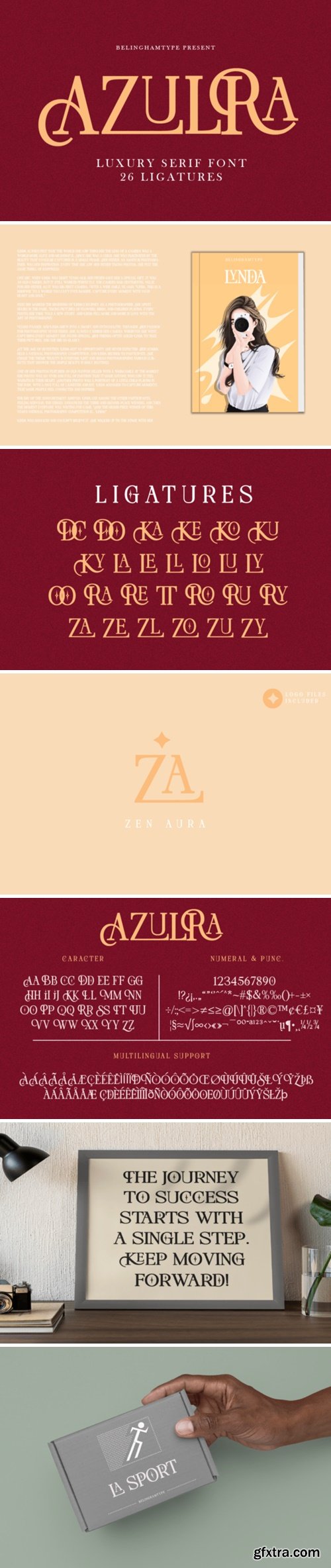
Azulra Font
Azulra is an elegant and bold serif font. Fall in love with its incredibly versatile style and use it to create gorgeous wedding invitations, beautiful stationary art, eye-catching social media posts, and much more!
Dencors Font
Relive the golden era of art with the timeless charm of Dencors- A new font duo with classy script and classic display sans. With vintage feel, inspired by 60s and 70s signages. This font perfectly made to be applied especially in logo, and the other various formal forms such as invitations, labels, logos, magazines, books, greeting / wedding cards, packaging, fashion, make up, stationery, novels, labels or any type of advertising purpose.
The Sanders Girls Font
Experience the charm and stylish versatility of “The Sanders Girls” – an alluring script font adorned with delightful swashes and savvy alternates. Let its elegance and whimsy elevate your designs, from wedding invites to greeting cards, logos to branding projects. “The Sanders Girls” enchants with its bewitching curves and ornate accents, infusing warmth and character into your creations. Whether you’re manifesting an emotion-filled message or dreaming up a fanciful logo, “The Sanders Girls” enriches your projects with a sublime, handcrafted touch.
Batafiya Guande Font
Batafiya Guande– an eclectic mix of retro and modern luxury. This unique and versatile font comes to life when you mix lowercase and uppercase letters, adding an irresistible touch of cool to your designs. Ideal for a variety of uses, Batafiya Guande is suitable for artistic craft projects, bold branding initiatives, eye-catching t-shirt designs, dramatic headlines, eye-catching posters, stylish tote bags, and even cute doormats.
Benevil Brush Font
Unleash your creativity with Benevil Brush, a vibrant and expressive handbrush font designed to add energy and personality to your projects. Whether you’re designing posters, invitations, or branding materials, Benevil Brush delivers a bold and dynamic aesthetic that commands attention. With its authentic hand-drawn feel and versatile character set, this font gives you the freedom to create stunning designs that stand out from the crowd. Elevate your typography game and make a lasting impression with Benevil Brush.
Stejita Font
Stejita, a beautiful script font for tattoos, flows gracefully with elegant curves and intricate details. Its unique style adds a touch of artistry to any design, making it perfect for expressing personal stories or meaningful messages on the skin.
Magnisa Font
This is a very elegant and classy font for all branding and logo designs. This type of serif font is made with elegance and luxury so it is very suitable for all your design uses. This type of font is very suitable for your various needs such as branding projects, logos, social media posts, advertisements, labels, product packaging, photography, wedding designs, watermarks, invitation product designs, stationery, and any project, created at a high level legibility.
Worgys Font
This is a very elegant and classy font for all branding and logo designs. This type of serif font is made with elegance and luxury so it is very suitable for all your design uses. This type of font is very suitable for your various needs such as branding projects, logos, social media posts, advertisements, labels, product packaging, photography, wedding designs, watermarks, invitation product designs, stationery, and any project, created at a high level legibility.
Glamick Font
This is a very elegant and classy font for all branding and logo designs. This type of serif font is made with elegance and luxury so it is very suitable for all your design uses. This type of font is very suitable for your various needs such as branding projects, logos, social media posts, advertisements, labels, product packaging, photography, wedding designs, watermarks, invitation product designs, stationery, and any project, created at a high level legibility.
Well Played Font
Well Played is a unique, handmade display font that gives your text a playful and artistic feel. Its handcrafted style makes it perfect for creating eye-catching designs, like posters, invitations, and social media graphics. This font adds a touch of personality and creativity to any project.
Mustac Font
This font features a balanced proportion of stroke thickness and fineness, creating attractive and easy-to-read visuals. This modern serif style is often characterized by a bold distinction between thick and thin lines, providing a touch that is understated but still stands out.
Buckland Font
Danforth Font
Danforth is a sweet and friendly handwritten font. Its natural and unique style makes it incredibly fitting to a large pool of designs. The only limit is your imagination!